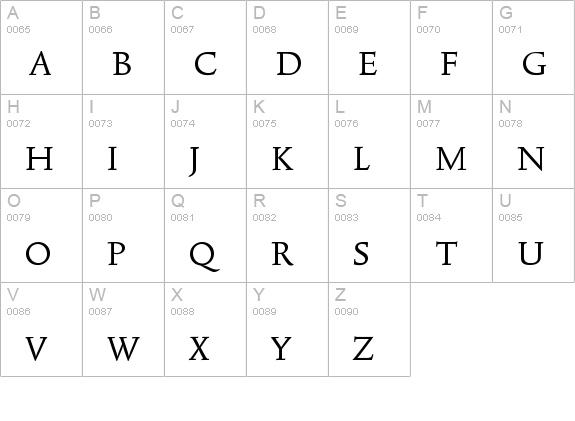
TriniteNo1-RomanWide font is a beautifully crafted typeface that exudes elegance and sophistication. With its wide and bold letterforms, this font commands attention and makes a bold statement. Its clean lines and balanced proportions make it perfect for a wide range of design projects, from logos and branding to headlines and advertising. What sets TriniteNo1-RomanWide font apart is not just its stunning aesthetics, but also the fact that it is available for free. Yes, you heard it right - this exceptional font can be freely downloaded at FontsMarket.com. This means that designers and creatives can now access a high-quality and versatile typeface without any cost. With TriniteNo1-RomanWide font, you can add a touch of sophistication and professionalism to your designs, all while saving money. Its wide and bold letterforms ensure maximum legibility, making it suitable for both print and digital projects. Whether you're designing a poster, a website, or a business card, this font will elevate your design to the next level. The versatility of TriniteNo1-RomanWide font is another reason why it's a must-have in every designer's toolkit. It can be easily paired with other fonts to create eye-catching typography combinations. Whether you want to create a modern and sleek look or a classic and timeless design, this font will effortlessly adapt to your creative vision. So don't miss out on this amazing opportunity to enhance your designs with TriniteNo1-RomanWide font. Download it for free today at FontsMarket.com and unleash your creativity without any limitations.